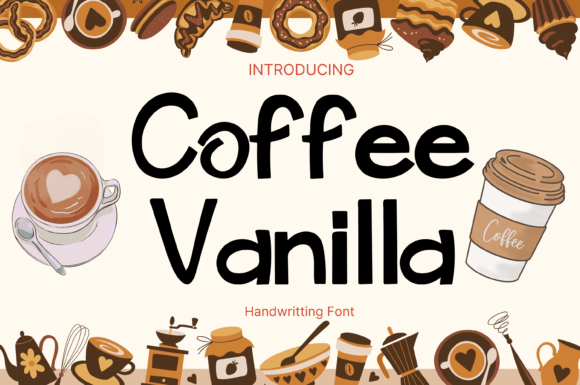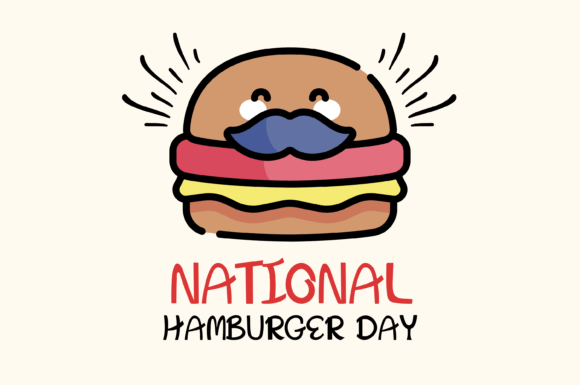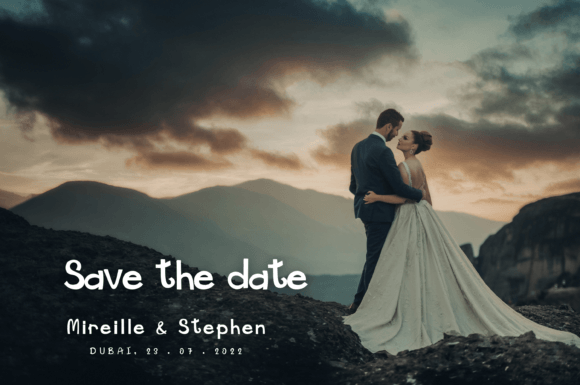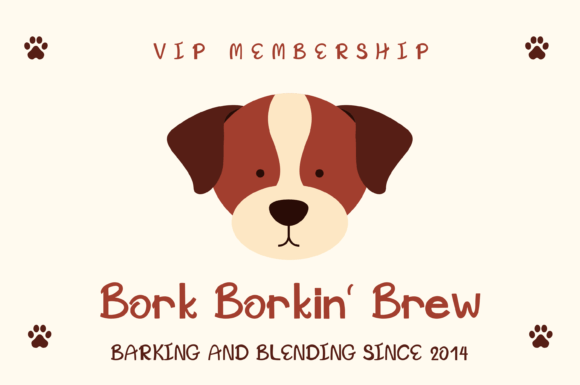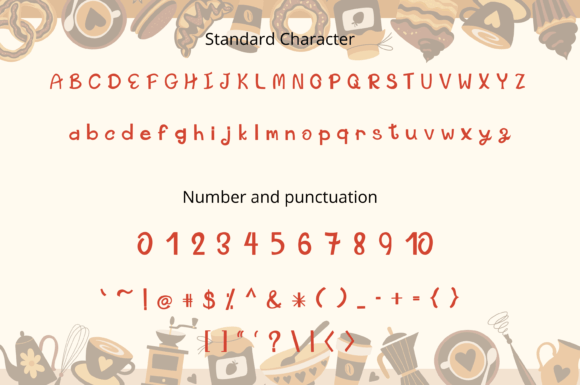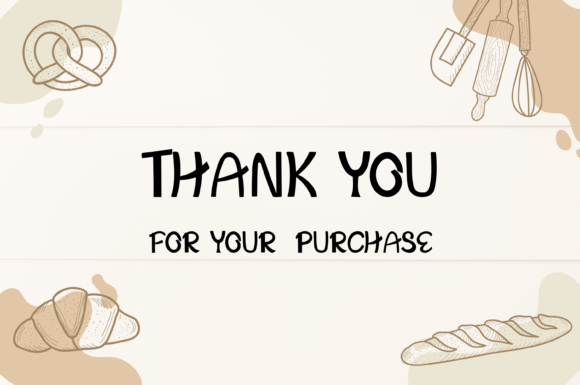
Coffee Vanilla Font
Coffee Vanilla Style is not just a font; it’s a whimsical masterpiece that brings a touch of charm and elegance to your creative projects. This clean handwritten font exudes a sense of playfulness and sophistication, making it a versatile choice for a wide array of design endeavors. Its whimsical and clean style adds a unique character to your projects, making them visually appealing and memorable.
Imagine Coffee Vanilla Style in a cafe’s menu design. Its whimsical characters and clean lines create an inviting atmosphere, making customers feel right at home. Whether it’s on a chalkboard menu, a coffee cup, or a pastry box, this font enhances the cafe’s identity, making it feel warm and welcoming. Coffee Vanilla Style turns ordinary menu items into delightful treats, engaging customers and enhancing their overall experience.
In branding and logo design, Coffee Vanilla Style adds a touch of elegance. Picture it in a boutique brand’s logo or a high-end product label. Its whimsical and clean handwritten style exudes sophistication, making the brand memorable and appealing to customers with a refined taste. Coffee Vanilla Style’s unique charm ensures that the brand stands out, leaving a lasting impression on clients and creating a sense of exclusivity.
For creative projects such as greeting cards, invitations, or social media graphics, Coffee Vanilla Style adds an element of whimsy. Its playful yet clean style injects energy and personality into the visuals, making the content visually appealing and delightful. Whether you’re creating a wedding invitation, a birthday card, or a social media post, this font enhances the overall aesthetic, making the designs stand out and capturing the audience’s attention.
Moreover, Coffee Vanilla Style seamlessly integrates into digital designs, website headers, and packaging. Its whimsical and clean characters create a sense of joy and positivity, making the content visually engaging and shareable. Whether you’re designing a website header, digital banners, or packaging for artisan products, Coffee Vanilla Style adds a touch of whimsy, creating a positive and memorable experience for online visitors and customers.
In summary, Coffee Vanilla Style is more than just a font; it’s a creative companion that brings your ideas to life with its whimsical and clean charm. Its versatility and unique character make it suitable for a wide range of applications, from cafe menus and branding to greeting cards and digital designs. So, add Coffee Vanilla Style to your creative toolbox and watch as it transforms your projects, making them stand out and leaving a delightful impression on anyone who experiences them.